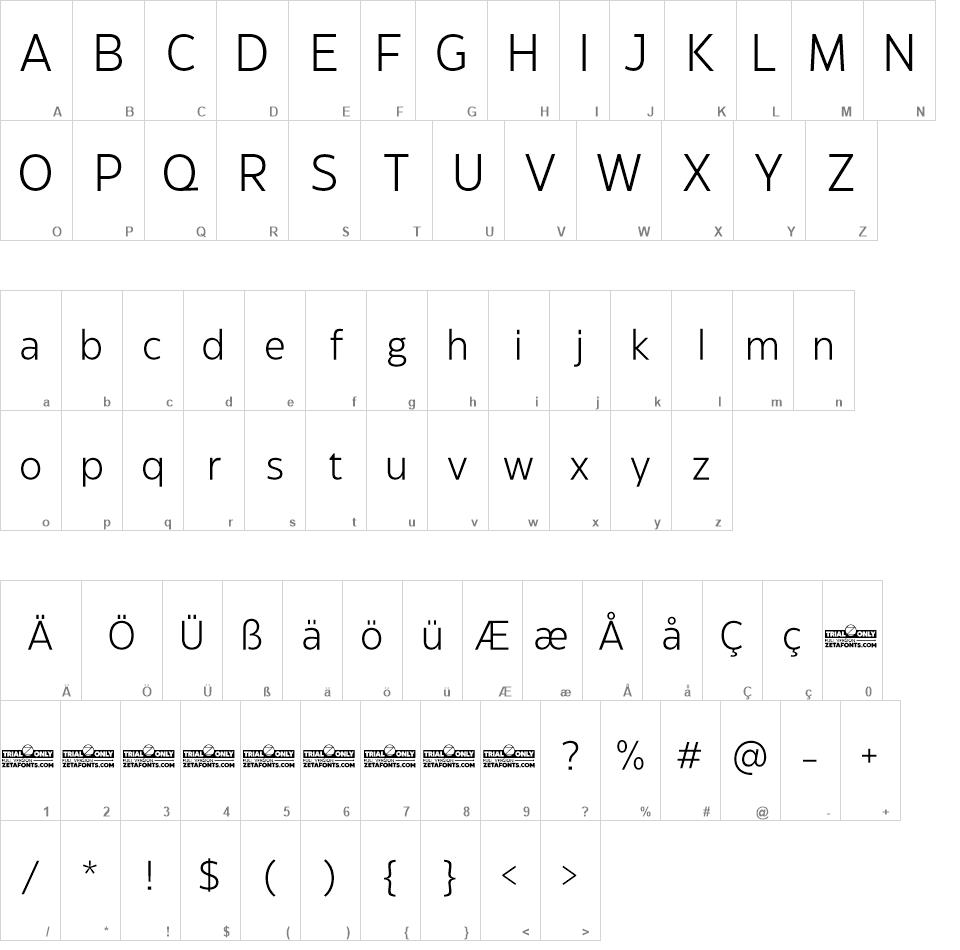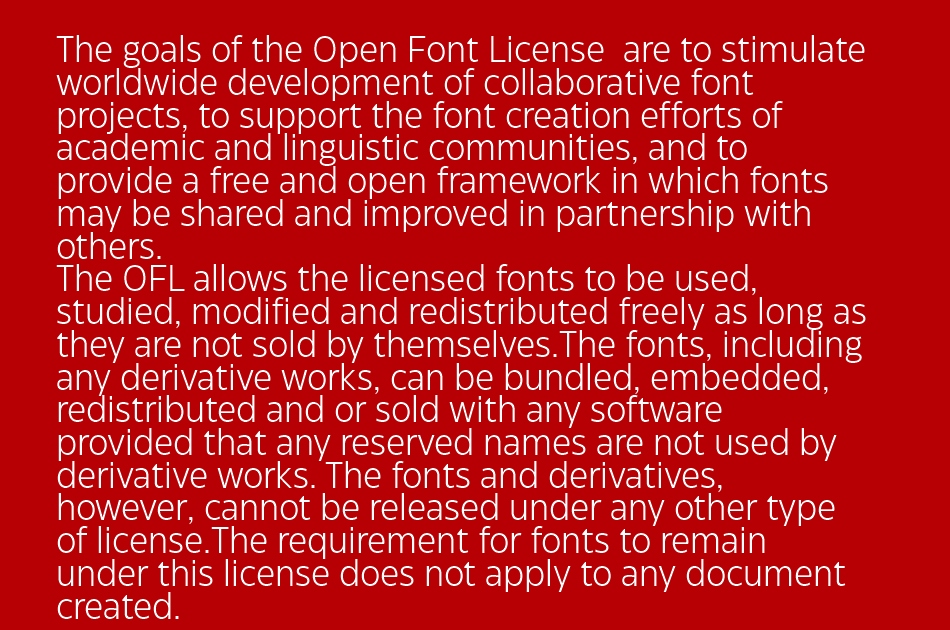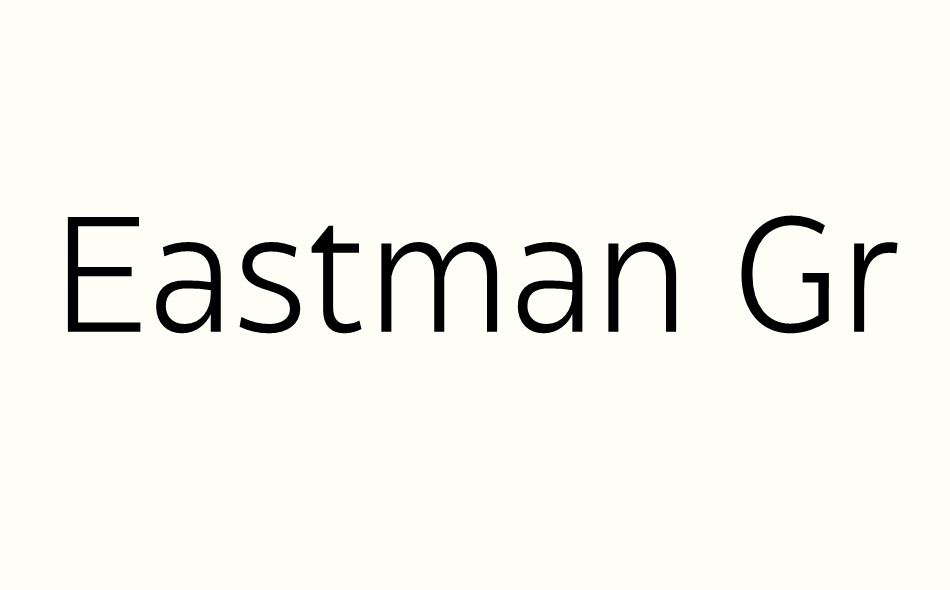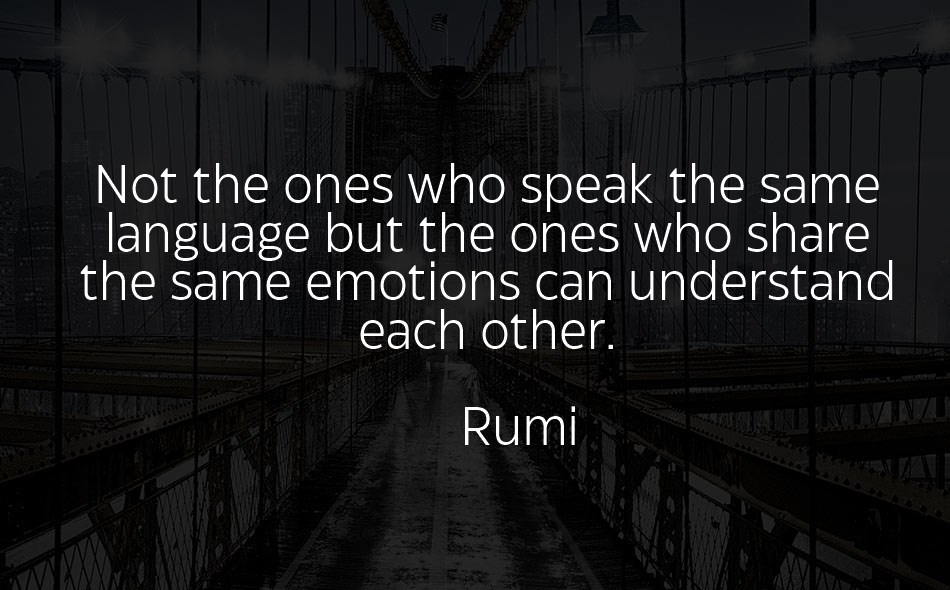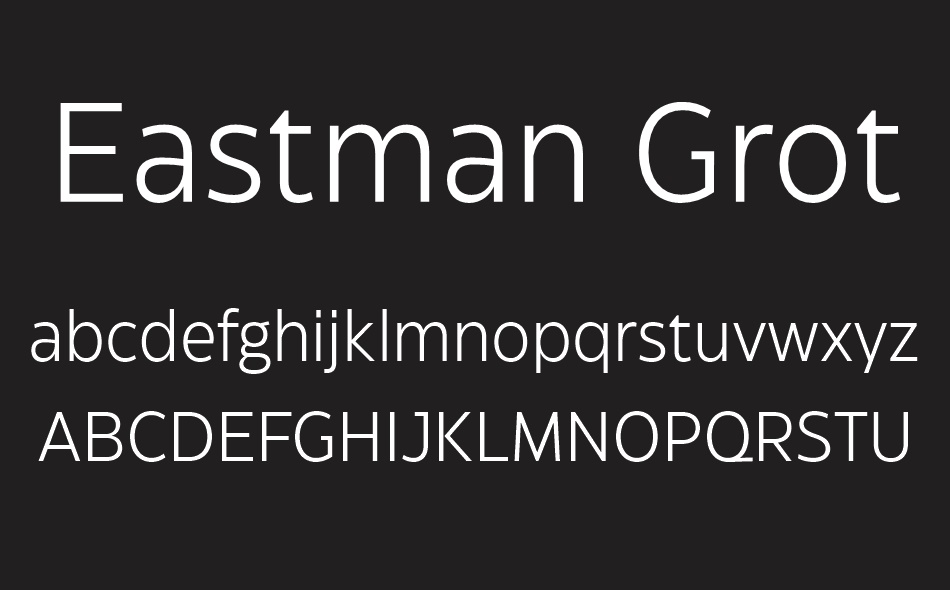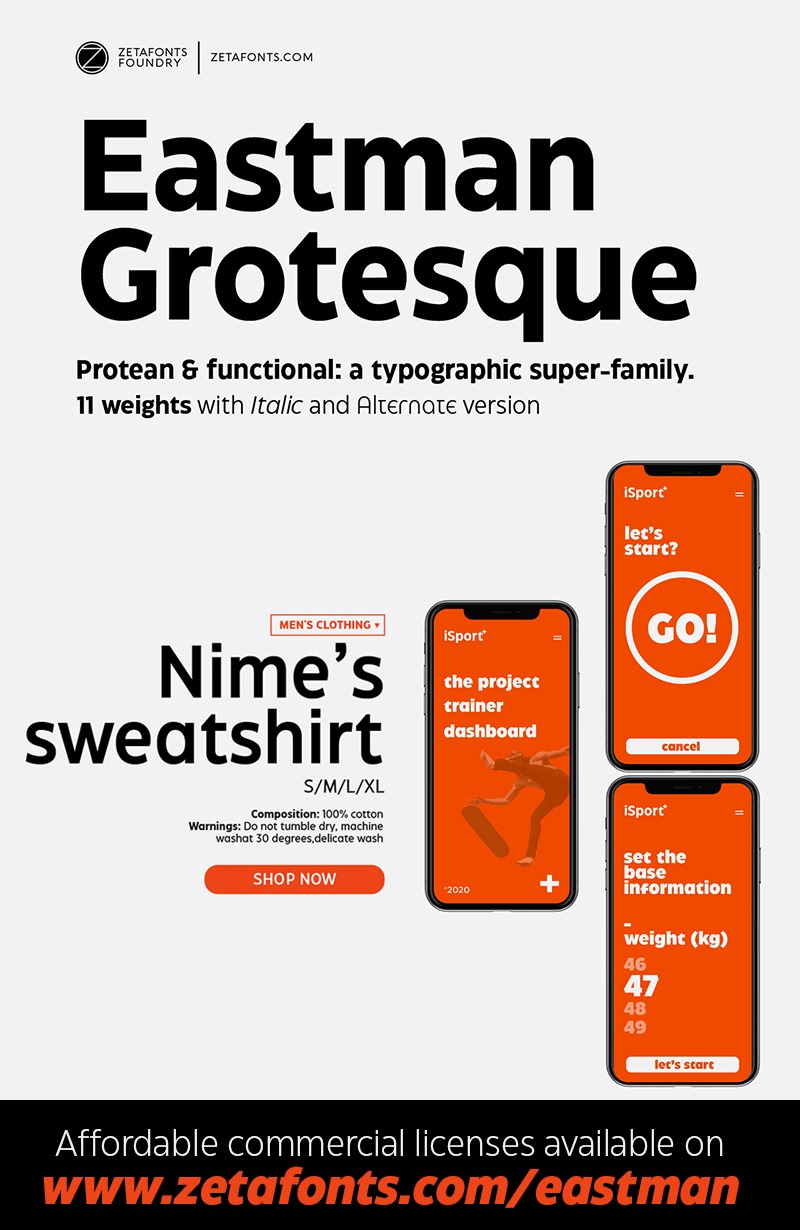
Eastman Grotesque font
Designed in 2020 for Zetafonts by Francesco Canovaro and Andrea Tartarelli with help from Solenn Bordeau and Cosimo Lorenzo Pancini, the original Eastman typeface family was conceived as a geometric sans workhorse family developed for maximum versatility both in display and text use. The original wide weight range has been complemented with three more additional widths, to give you maximum control over the appearance of text in your page. While Eastman Compressed and Eastman Condensed behave as space-saving condensed families, Eastman Grotesque adapts the family design style to humanist proportions. All share a solid monolinear design and a tall x-height that makes body text set in Eastman extremely readable on paper and on the screen.
Influenced by Bauhaus ideals and contemporary minimalism, but with a nod to the pragmatic nature 19th century grotesques, Eastman has been developed as a highly reliable tool for design problem solving, and given all the features a graphic designer needs - from a wide language coverage (thanks to over one thousand and two hundred latin, cyrillic and greek characters) to a complete set of open type features (including small capitals, positional numbers, case sensitive forms). The most impressive feature of all Eastman fonts remains the huge choice of alternate characters and stylistic sets that allows you to fine-tune your editorial and branding design by choosing unique, logo-ready variant letter shapes. Dont want to lose too much time with the glyphs palette? Use the Eastman Alternate weights, thought for display use and presenting a selection of some of the more eye catching & unusual letter shapes available for the family.
Eastman A Geometric Sans workhorse family AABCDEEFFGG HIIJJJKKKLMMM NNOPPQQQQRR STUVWWXXYYZ Eastman 1400 Glyphs, 2 Styles, 9 Weights with matching ItalicsName: Classification: Publisher: Designers: Release year: Styles: Available: Eastman Sans Serif Francesco Canovaro Andrea Tartarelli 20 weights, 2 styles with matching italics www.zetafonts.com/Eastman 2020 Zetafonts Type Foundry ABOUT Eastman was designed in 2020 for Zetafonts by Francesco Canovaro and Andrea Tartarelli with help from Solenn Bordeau. It is a geometric sans workhorse family developed for maximum versatility both in display and text use, with a wide weight range and a solid monolinear design featuring a tall x-height that makes Eastman extremely readable on paper and on the screen. Influenced by Bauhaus ideals and contemporary minimalism, but with a nod to the pragmatic nature 19th century grotesques, Eastman has been developed as a highly reliable tool for design problem solving, and given all the features a graphic designer needs - from a wide language coverage (thanks to over one thousand and two hundred latin, cyrillic and greek characters) to a complete set of open type features (including small capitals, positional numbers, case sensitive forms). An impressive array of alternate characters and stylistic sets allows to fine-tune your editorial and branding design by choosing unique, logo-ready variant letter shapes. The twenty weights of the base family have been complemented by a display-oriented alternate family, as well as one variable version, bringing the full family to an impressive count of 41 fonts. Eastman excels in both body text, headings and wordmarks and it is your new option for a universal geometric grotesque. Eastman ZETAFONTS.COM Zetafonts.com/Eastmana Aa Aa Aa Aa A Eastman ZETAFONTS.COM Zetafonts.com/Eastman Ag Regular Offset Ag Medium Ag Bold Ag Extrabold Ag Black Ag Heavy Thin Ag Extralight Ag Light Ag Regular Ag Ag Alt Regular Offset Ag Alt Medium Ag Alt Bold Ag Alt Extrabold Ag Alt Black Ag Alt Heavy Alt Thin Ag Alt Extralight Ag Alt Light Ag Alt Regular Ag 10 WEIGHTS and 2 STYLES EASTMAN ‹ Free ‹ FreeTEXTPROOF Antifašistická Akcia!! The truth will set you free. But not until it is finished with you. Cantina Castelões™ The richest man is not he who has the most, but he who Değiştirilemez Teklif The sun machine is coming down, and we're gonna have a Linee sospese per neve Always forgive your enemies; nothing annoys them so much Ert ?ú Bókstafstrúar “All that we see or seem is but a dream within a dream.” Condizioni, pagamenti The cure for boredom is curiosity. There is no cure [...] David Foster Wallace Ground Control to Major Tom. Can you hear me, Major Irwin Allen Ginsberg You miss 100 % of the shots you never take. Do you? “LÄBIVIIMISESSE” the man who only has a hammer, everything he encounters UNA GENEROSA[...] Over thinking, over analyzing, separates the body from the... PA?ALÂCUL BUDA!! Wear the grudge like a crown of negativity calculate what DI ENERGIA E FORZA We are what we repeatedly do; excellence, then, is not a choiche FRANGISKU JCEMPEL We can be heroes, forever and ever. What d'you say? [...] AZGARAD FETIŠISM I worry about being a success in a mediocre world(²) 150 COPII FRUMO?I We are choosing to be here right now hold on, stay inside ¿ES INESCRUTABLE? I’d rather live with a good question than a bad answer. Eastman ZETAFONTS.COM Zetafonts.com/EastmanTEXTPROOF Antifašistická Akcia!! The truth will set you free. But not until it is finished with you. Cantina Castelões™ The richest man is not he who has the most, but he who Değiştirilemez Teklif The sun machine is coming down, and we're gonna have a Linee sospese per neve Always forgive your enemies; nothing annoys them so much Ert ?ú Bókstafstrúar “All that we see or seem is but a dream within a dream.” Condizioni, pagamenti The cure for boredom is curiosity. There is no cure [...] David Foster Wallace Ground Control to Major Tom. Can you hear me, Major Irwin Allen Ginsberg You miss 100 % of the shots you never take. Do you? “LÄBIVIIMISESSE” the man who only has a hammer, everything he encounters UNA GENEROSA[...] Over thinking, over analyzing, separates the body from the... PA?ALÂCUL BUDA!! Wear the grudge like a crown of negativity calculate what DI ENERGIA E FORZA We are what we repeatedly do; excellence, then, is not a choiche FRANGISKU JCEMPEL We can be heroes, forever and ever. What d'you say? [...] AZGARAD FETIŠISM I worry about being a success in a mediocre world(²) 150 COPII FRUMO?I We are choosing to be here right now hold on, stay inside ¿ES INESCRUTABLE? I’d rather live with a good question than a bad answer. Eastman ZETAFONTS.COM Zetafonts.com/EastmanTEXTPROOF Antifašistická Akcia!! The truth will set you free. But not until it is finished with you. Cantina Castelões™ The richest man is not he who has the most, but he who Değiştirilemez Teklif The sun machine is coming down, and we're gonna have a Linee sospese per neve Always forgive your enemies; nothing annoys them so much Ert ?ú Bókstafstrúar “All that we see or seem is but a dream within a dream.” Condizioni, pagamenti The cure for boredom is curiosity. There is no cure [...] David Foster Wallace Ground Control to Major Tom. Can you hear me, Major Irwin Allen Ginsberg You miss 100 % of the shots you never take. Do you? Eastman ZETAFONTS.COM Zetafonts.com/EastmanTEXTPROOF Antifašistická Akcia!! The truth will set you free. But not until it is finished with you. Cantina Castelões™ The richest man is not he who has the most, but he who Değiştirilemez Teklif The sun machine is coming down, and we're gonna have a Linee sospese per neve Always forgive your enemies; nothing annoys them so much Ert ?ú Bókstafstrúar “All that we see or seem is but a dream within a dream.” Condizioni, pagamenti The cure for boredom is curiosity. There is no cure [...] David Foster Wallace Ground Control to Major Tom. Can you hear me, Major Irwin Allen Ginsberg You miss 100 % of the shots you never take. Do you? “LÄBIVIIMISESSE” the man who only has a hammer, everything he encounters UNA GENEROSA[...] Over thinking, over analyzing, separates the body from the... PA?ALÂCUL BUDA!! Wear the grudge like a crown of negativity calculate what DI ENERGIA E FORZA We are what we repeatedly do; excellence, then, is not a choiche FRANGISKU JCEMPEL We can be heroes, forever and ever. What d'you say? [...] AZGARAD FETIŠISM I worry about being a success in a mediocre world(²) 150 COPII FRUMO?I We are choosing to be here right now hold on, stay inside ¿ES INESCRUTABLE? I’d rather live with a good question than a bad answer. Eastman ZETAFONTS.COM Zetafonts.com/Eastman 1 THE MAN WITHOUT QUALITIES (1930) - “A barometric low hung over the Atlantic. It moved eastward toward a high-pressure area over Russia without as yet showing any [...]„ Robert Musil Thin pt 9 Medium pt 9 Bold pt 9 Extrabold pt 9 Black pt 9 Regular pt 9 Extralight pt 9 Light pt 9 2 GRAVITY'S RAINBOW (1973) - “It has happened before,but there is nothing to compare it to now.It is too late. The Evacuation still proceeds, but it's all theatre.„ 3 ULYSSES (1922) - “Stately, plump buck mulligan came from the stairhead, bearing a bowl of lather on which a mirror and a razor lay crossed. A yellow dressing gown, ungirdled„ James Joyce 5 IF ON A WINTER'S NIGHT A TRAVELER (1979) - “You are about to begin reading Italo Calvino's new novel, If on a winter's night a traveler.„ Italo Calvino 6 THE CATCHER IN THE RYE (1951) - “If you really want to hear about it, the first thing you'll probably want to know is where I was born [...] 7 THE MAKING OF AMERICANS (1925) - “Once an angry man dragged his father along the ground through his own orchard.„ Gertrude Stein 8 White Noise (1985) - “Le station wagon arrivarono a mezzogiorno, lunga fila lucente che attraversò il settore occidentale del campus.„ Heavy pt 9 9 ROBINSON CRUSOE (1719) - “I was born in the Year 1632, in the City of York, of a good Family, tho' not of that Country, my Father being a Foreigner of Bremen, who settled first at Hull [...]„ Daniel Defoe 5 ROBINSON CRUSOE (1719) - “I was born in the Year 1632, in the City of York, of a good Family, tho' not of that Country, my Father being a Foreigner of Bremen, who settled first at Hull [...]„ Daniel Defoe 6 IF ON A WINTER'S NIGHT A TRAVELER (1979) - “You are about to begin reading Italo Calvino's new novel, If on a winter's night a traveler.„ Italo Calvino 7 THE CATCHER IN THE RYE (1951) - “If you really want to hear about it, the first thing you'll probably want to know is where I was born [...] 8 THE MAKING OF AMERICANS (1925) - “Once an angry man dragged his father along the ground through his own orchard.„ Gertrude Stein 9 White Noise (1985) - “Le station wagon arrivarono a mezzogiorno, lunga fila lucente che attraversò il settore occidentale del campus.„ 4 MATTATOIO N.5 (1969) - “È tutto accaduto, più o meno. Le parti sulla guerra, in ogni caso, sono abbastanza vere. Un tale che conoscevo fu veramente ucciso, [...]„ Kurt Vonnegut Regular Offset pt 9 1 A TALE OF TWO CITIES (1859) - “It was the best of times, it was the worst of times, it was the age of wisdom, it was the age of foolishness, it was the epoch of belief[...]„ The so-called ‘psychotically depressed’ person who tries to kill herself doesn’t do so out of quote ‘hopelessness’ or any abstract conviction that life’s assets and debits do not square. And surely not because death seems suddenly appealing. The person in whom Its invisible agony reaches a certain unendurable level will kill herself the same way a trapped person will eventually jump from the window of a burning high-rise. Make no mistake about people who leap from burning windows. Their terror of falling from a great height is still just as great as it would be for you or me standing specula- TEXT PROOF The so-called ‘psychoti- cally depressed’ person who tries to kill herself doesn’t do so out of quote ‘hopelessness’ or any abstract conviction that life’s assets and debits do not square. And surely not because death seems suddenly appealing. The person in whom Its invisible agony reaches a certain unendurable level will kill herself the same way a trapped person will eventually jump from the window of a burning high-rise. Light&Medium Italic 10 pt Extralight 15 pt Thin 15 pt Light 15 pt Regular 15 pt Medium 15 pt Bold 15 pt Extrabold 15 pt Black 15 pt Heavy 15 ptEastman ZETAFONTS.COM Zetafonts.com/Eastman 16pt / 20 - Mixed Weights 12pt / 16 - Mixed Weights 10pt / 14 - Mixed Weights 8pt / 12 - Mixed Weights 20pt / 24 - Mixed Weights Nero (Latin: Nero Claudius Caesar Augustus Germanicus) was the last Roman emperor of the Julio-Claudian dynasty. He was born Lucius Domitius Ahenobarbus on 15 December 37 ad in Antium. Nero was adopted by his great-uncle Claudius and became his heir and successor. Nero’s mother, Agrippina the Younger, was likely implicated in Claudius’ death and Nero’s nomination as em- During the early years of his reign, Nero was content to be guided by his mother, his tutor Lucius Annaeus Seneca and his Praetorian prefect, Sextus Afranius Burrus. As time passed, he started to play a more active and indepen- dent role in government and foreign policy. During his reign, the redoubtable general Corbulo conducted a successful war and negotiated peace with the Parthian Empire. His general Suetonius Paulinus crushed a major revolt in Britain, led by the Iceni Queen Boudica. Nero focused much of his attention on diplomacy, trade and the cultural life of the empire, ordering theatres built and promoting athletic Nero’s rule is usually associated with tyranny and extravagance. Most Roman sources, such as Suetonius and Cassius Dio, offer overwhelmingly negative assessments of his personality and reign. Tacitus claims that “the Roman people thought him compulsive and corrupt”. Suetonius tells that “many Romans believed that the Great Fire of Rome was instigated by Nero to clear the way for his planned palatial complex, the Domus Aurea.” According to Tacitus he was said to have seized Christians as scapegoats for the fire and burned them alive, seemingly motivated not by public justice but by personal cruelty. Some modern historians question the reliability of the ancient sources on Nero’s tyrannical acts. A few sources paint Nero in a more favorable light. There is evidence of his popularity among the Roman commoners, especially in the eastern provinces of the Empire, where a popular legend arose that Nero had not died and would return. Nero’s father, Domitius, died in 40. A few years before his death, Domitius had been involved in a political scandal that, according to Malitz: “could have cost him his life if Tiberius had not died in the year 37, since in the previous year, Nero’s mother Agrippina had been caught up in a scandal of her own”. Caligula’s beloved sister Drusilla had recently died and Caligula began to feel threatened by his brother-in-law Marcus Aemilius Lepidus. Agrippina, suspected of adultery with her brother-in-law, was forced to carry the funerary urn after Lepidus’ execution. Caligula then banished his two surviving sisters, Agrippina and Julia Livilla, to a remote island in the Mediterranean Sea. According to The Oxford Encyclopedia of Ancient Greece and Rome, Agrippina was exiled for plotting to overthrow Caligula. Caligula’s reign lasted from 37 until 41. He died from multiple stab wounds in January of 41 after being ambushed by his own Praetorian Guard on the Palatine Hill. Claudius succeeded Caligula as Emperor. Agrippina married Claudius in 49 ad and became his fourth wife. By February 49, she had persuaded Claudius to adopt her son Nero. After Nero’s adoption, “Claudius” became part of his name: Nero Claudius Caesar Drusus Germanicus. Claudius had gold coins issued to mark the adoption. Classics professor Josiah Osgood has written that “the coins, through their distribution and imagery alike, showed that a new Leader was in the making.” David Shotter noted that, despite events in Rome, Nero’s step-brother Britannicus was more prominent in provincial coinages during the early 50s. The ancient biographer Suetonius, who was critical of Nero’s ancestors, wrote that Augustus had reproached Nero’s grandfather for his unseemly enjoyment of violent gladiator games. According to Jürgen Malitz, Suetonius tells that Nero’s father was known to be “irascible and brutal”, and that both “enjoyed chariot races and theater performances to a degree not Eastman ZETAFONTS.COM Zetafonts.com/Eastman STYLISTIC ALTERNATES Stylistic Alternates or Stylistic Sets were designed to offer a secondary form of a character. v v vv Ragnarok STYLISTIC SET 01, 02, 03... There are more than one Stylistic Set. Check out the possibilities of text appearance. ALEMANIA vALTERNATE FIGURES Tabular Figures are especially useful while setting columns of numbers, such as in financial reports. 123 proportional old style 123 proportional lining |1|2|3| tabular old style v v POSITIONING FIGURES/FRACTIONS ? fraction 1º2ª ordinals superscript superior X¹² subscript-inferior H²O numerator N123 denominator D234 These various kind of figures are used for fractions, footnote references, chemical compounds, and as mathematical exponents. Eastman ZETAFONTS.COM Zetafonts.com/EastmanSMALLCAPS Tropicalia › Small Caps feature substitutes lowercase with a capital versions of the letters sets within the x-height ????? ????? ?????, ??? ?? ??????? ??????????, ???? ?????????? ???????? CYRILLIC SCRIPT Eastman ZETAFONTS.COM Zetafonts.com/EastmanCHARACTER SET ABCDEFGHIJKLMNOPQRSTUVWXYZ - ÆŒ?? ÁAÂÄÀAAÅÃ?CCÇCCDDÉEEÊËEÈEEĞGGGHH?ÍIÎÏİÌIIIJKLLL?NNN?ÑÓ OÔÖÒOOØÕRRRSŠŞS?TTT?ÚUÛÜÙUUUUU?W??YYŸ?ZZZ - alternates AABEEFFFGGGHIJJKMMNPQQQRVWWXXYY abcdefghijklmnopqrstuvwxyz - æœ??ß ááâàaaåãcçccddéeeêëeeeğgghhíiîïì?iiik?ll?nnn?ñ óoôöòooøõrrrsšşs?ttt?úuûüùuuuuw??yyÿ?zzz alternates aabdeeffffgggggiijjkkkmnpqq qttttuwxyyyyy 0123456789 0123456789 01234 5678 9 0123456789 °¹²³45678?0123456789 0123456789 °0²³456789., UPPERCASE & ACCENTED lowercase & accented Figures & Mathematical notations .,:;…!¡?¿·•*!#•/\(){}[]-–—_„“”‘’«»‹›”’¢€$€ƒ£¥¢++-×÷=?> Type -> Opentype panel for more information check our faq page: http://bit.ly/zetafaq Eastman ZETAFONTS.COM Zetafonts.com/EastmanIn the package are available the most common file format for every purpose: TTF, OTF, EOT, WOFF, WOFF2 › Install on Windows 10 Once downloaded, right-click on the file, select “Extract All”. After extraction (or accessing the file at its downloaded destination), right-click on the file and select “Install”. Otherwise navigate to Cortana’s search field on the taskbar, type “Control Panel” and click the corresponding result. With the Control Panel open, navigate to “Appearance and Personalization” and click on “Fonts” in the main window. Here you can Drag and Drop your files. › Install on Mac OS Double click the unzipped font file and Font Book will open a preview of the font. Click “Install Font” at the bottom of the preview. AVAILABLE FORMATS AND INSTALLATION SPEC Eastman ZETAFONTS.COM Zetafonts.com/EastmanHOW TO GET THE FONT In order to use our fonts in a commercial project, you need to pay a license fee that varies according to usage and number of users. Acquiring a license on our website www.zetafonts.com is the fastest way. You will be able to download the fonts immediately after the payment. Our website accepts payments with credit card or with PayPal account, both using PayPal POS that accepts all main credit cards. For more information about licensing, visit www.zetafonts.com/licensing TRY BEFORE YOU BUY Our fonts are free to try and for personal/non-commercial use. You can download the trial version in order to test the integration in your design by visiting the font page on www.zetafonts.com CUSTOM FONT Custom fonts is part of the services we offer as a type foundry. This include design completely new typefaces, modifications of existing ones, or creation of special language sets. For more information visit: www.zetafonts.com/custom-fonts WEBFONTS All Zetafonts typefaces are available also as webfonts as self-hosting webfont licence. We provide the fonts as EOT, WOFF, WOFF2 formats. Eastman ZETAFONTS.COM Zetafonts.com/EastmanZetafonts is an independent digital type foundry run by an Italian type designer Team and currently based in Florence. It has spent more than a decade designing typefaces for print, digital, environmental design, branding and corporation. Besides creating a wide range of high quality retail typefaces, Zetafonts also provides custom typeface design services for commercial and institutional clients. © 2019 Ligature srl. All rights reserved. Zetafonts is a Ligature srl division Ligature srl via ghibellina 100 50122 Florence Italy info@zetafonts.com www.zetafonts.comZETAFONTS FOUNDRY ZETAFONTS.COM CONTACT: INFO@ZETAFONTS.COM END-USER LICENSE AGREEMENT FOR THE INCLUDED ZETAFONTS FONTS This End-User License Agreement ("EULA") is a legal agreement between you (as an individual) and Zetafonts fonts foundry for the digital typeface software - hereafter "fonts" included in this package: Eastman Family created by zetafonts The fonts in this package are released under a creative commons - attribution - non commercial (CC BY-NC) License. This license lets you freely use and alter them for your design work as long as the new work is non-commercial and ZetaFonts is credited. 01] You may install and use an unlimited number of copies of the fonts. 02] You can make archival copies of the fonts for your own purposes. 03] You may modify the fonts for your own purposes, but the copyright remains with the author, and you are not allowed to distribuite renamed, edited or derivative works, either for profit or not. 04] You must include the credit line below: (Font: Eastman Family by Zetafonts -http://www.zetafonts.com/collection/4954) To acquire a FULL LICENSE for commercial use (allowing file release to a prepress bureau and embedding in other software files, such as Portable Document Format (PDF) or Flash files), visit the url: http://www.zetafonts.com/collection/4954 Zetafonts expressly disclaims any warranty for the fonts. The fonts and any related documentation is provided as is; without warranty of any kind, either express or implied, including, without limitation, the implied warranties or merchantability, fitness for a particular purpose, or noninfringement. The entire risk arising out of use or performance of the fonts remains with you. Copies of the fonts may not be distributed or shared in any way (for profit or free of charge) either on a standalone basis or included as part of your own product. In no event shall Zetafonts or its suppliers be liable for any damages whatsoever (including, without limitation, damages for loss of business profits, business interruption, loss of business information, or any other pecuniary loss) arising out of the use of or inability to use this product, even if Zetafonts has been advised of the possibility of such damages. Because some states/jurisdictions do not allow the exclusion or limitation of liability for consequential or incidental damages, the above limitation may not apply to you. The fonts included are protected by copyright laws and international copyright treaties, as well as other intellectual property laws and treaties. For more info and commercial licence notice visit: http://www.zetafonts.com/collection/4954 or write to: info@zetafonts.com Should you have any questions concerning this EULA, please contact Zetafonts via its website at http:/www.zetafonts.com, or write directly to Zetafonts, info@zetafonts.com Eastman Grotesque font download, Eastman Grotesque font.